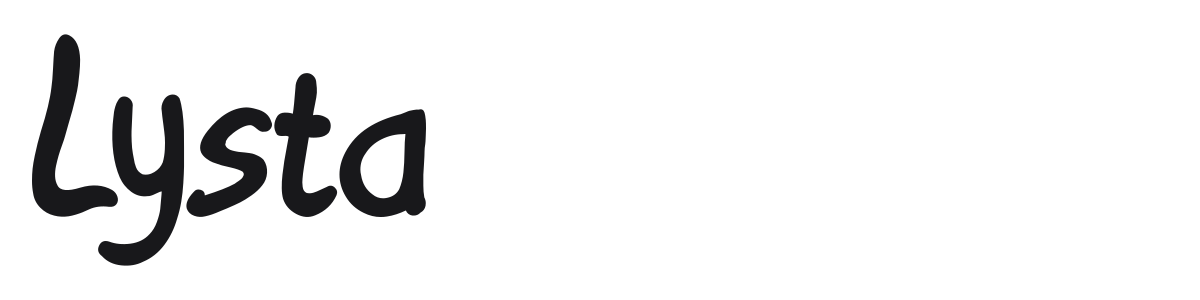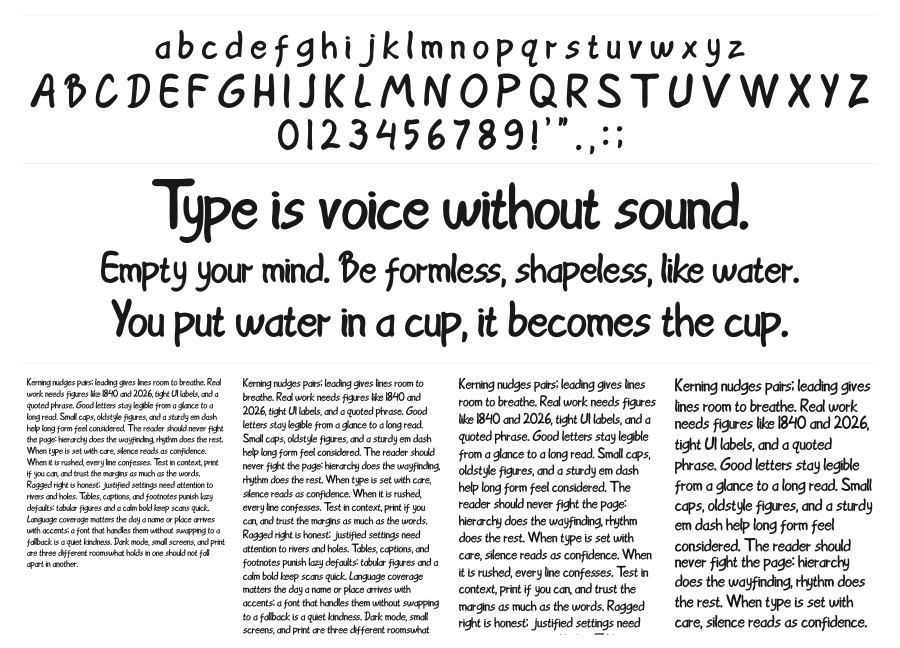
Lysta
Lysta is a bold upright casual script with thick rounded strokes and a relaxed hand-drawn energy. Every curve feels generously soft, giving the typeface an accessible, friendly character without tipping into comic territory. It works best at display sizes where its chunky warmth can do its thing.